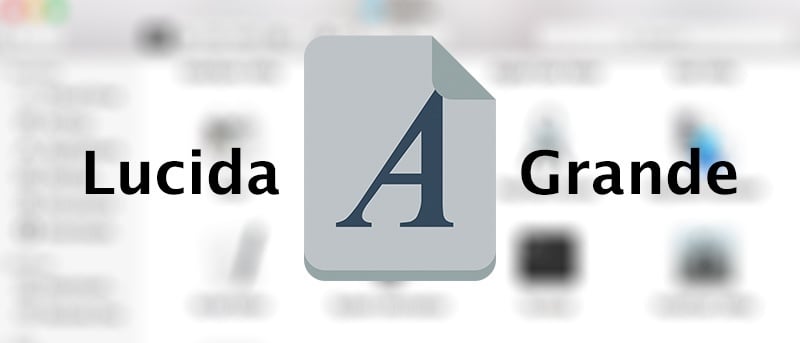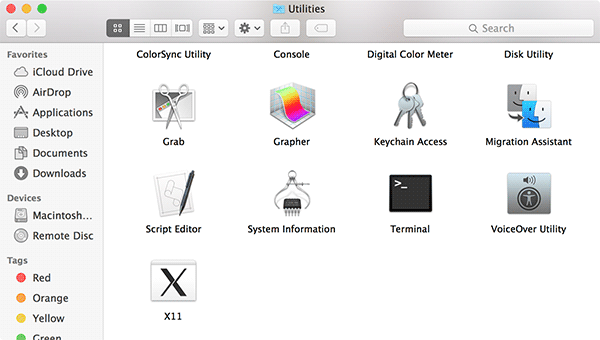
How to Change the Default Font to Lucida Grande in OS X El Capitan
With the release of OS X El Capitan, Apple announced “San Francisco” as the official and default font for its latest version of the OS. While this major change was welcomed by many proud owners of Macs, there were still some groups of people that preferred the old Lucida Grande font as their default font.
The new font brings with it a new way of reading text on your Mac. However, in my opinion, the old Lucida Grande font looked really crispy on the beautiful retina displays of Macs compared to the newly added font by the Cupertino-based company. If you are a fan of that font and are looking to get it back, then you are in luck.
8. When your Mac restarts, you will be able to see the newly installed Lucida Grande font everywhere on your screen. From the Finder menu to the file names on your desktop, the font is just everywhere.
Conclusion
If you have been using the Lucida Grande font on your Mac for a long time and wish to retain it regardless of the OS X updates, the above guide should help you do that.